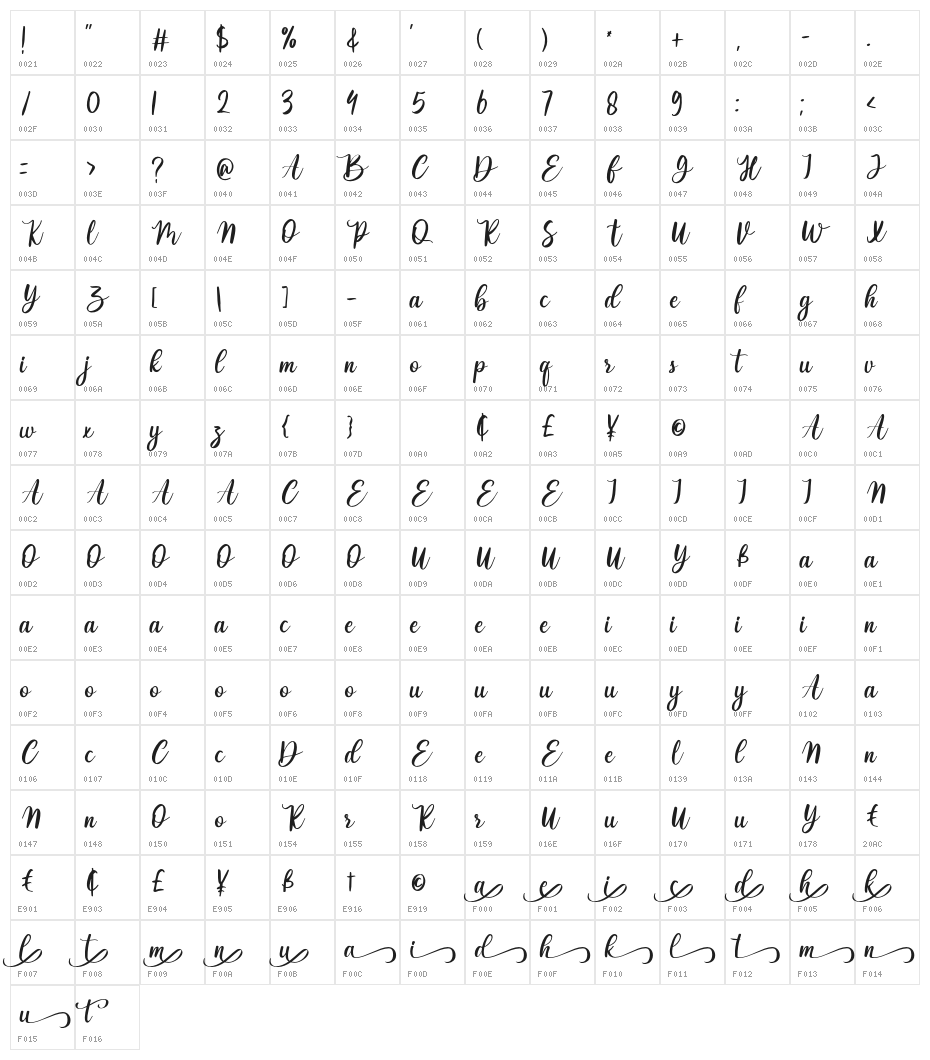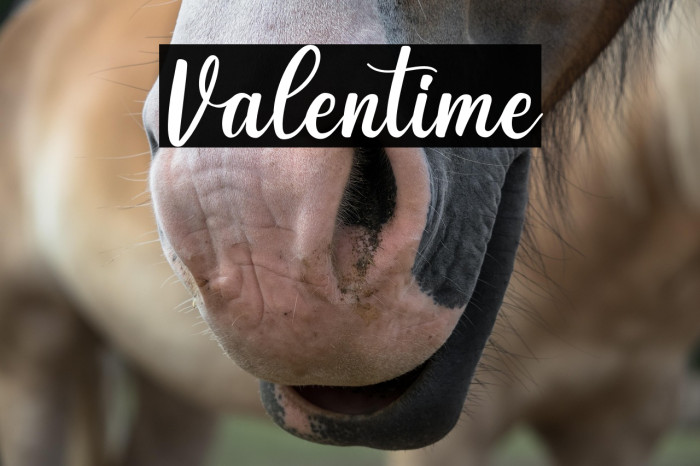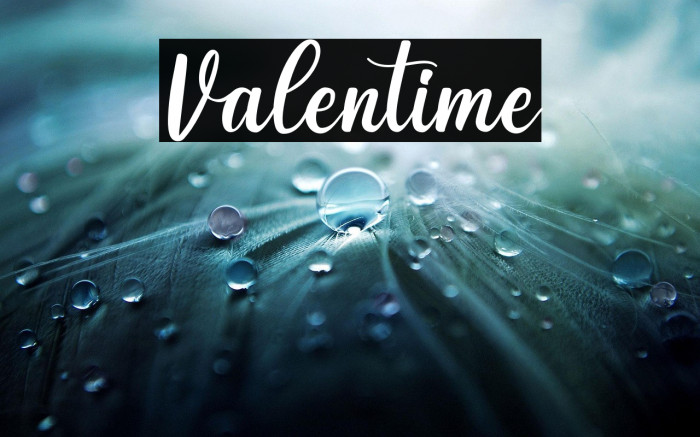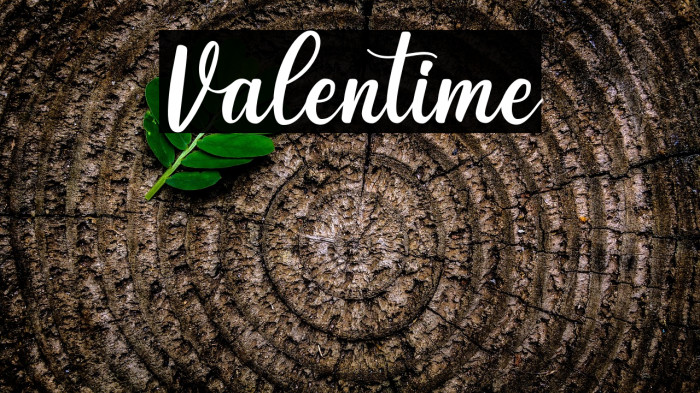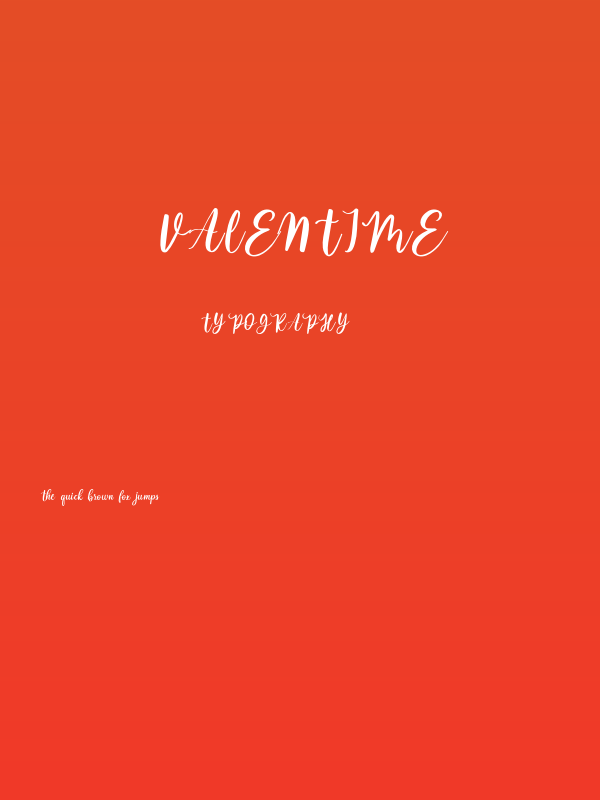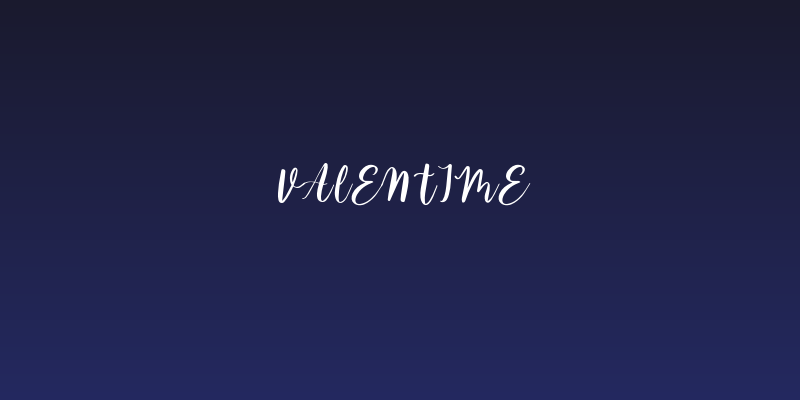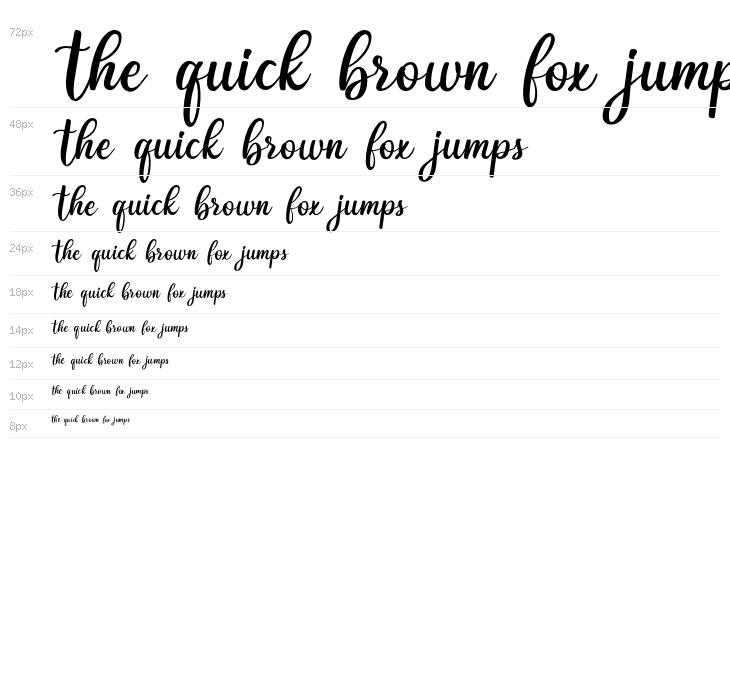
Valentime Font
Valentime Description
This font exhibits a charming and fluid script style, characterized by its elegant, flowing lines and smooth curves. The uppercase letters are slightly more ornate, with playful swashes and loops that add a touch of sophistication. The lowercase letters maintain a consistent rhythm, enhancing readability while preserving the font's artistic flair. The numerals are clear and well-defined, complementing the overall design. Special characters are thoughtfully crafted, maintaining the font's cohesive aesthetic. This font is ideal for projects that require a personal and artistic touch, such as invitations, greeting cards, and branding materials.
| Proposed Projects | Ideal for invitations, greeting cards, branding materials, and artistic projects. |